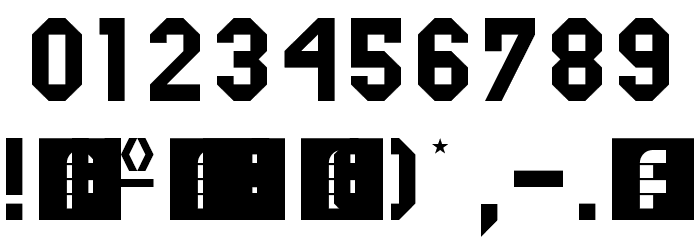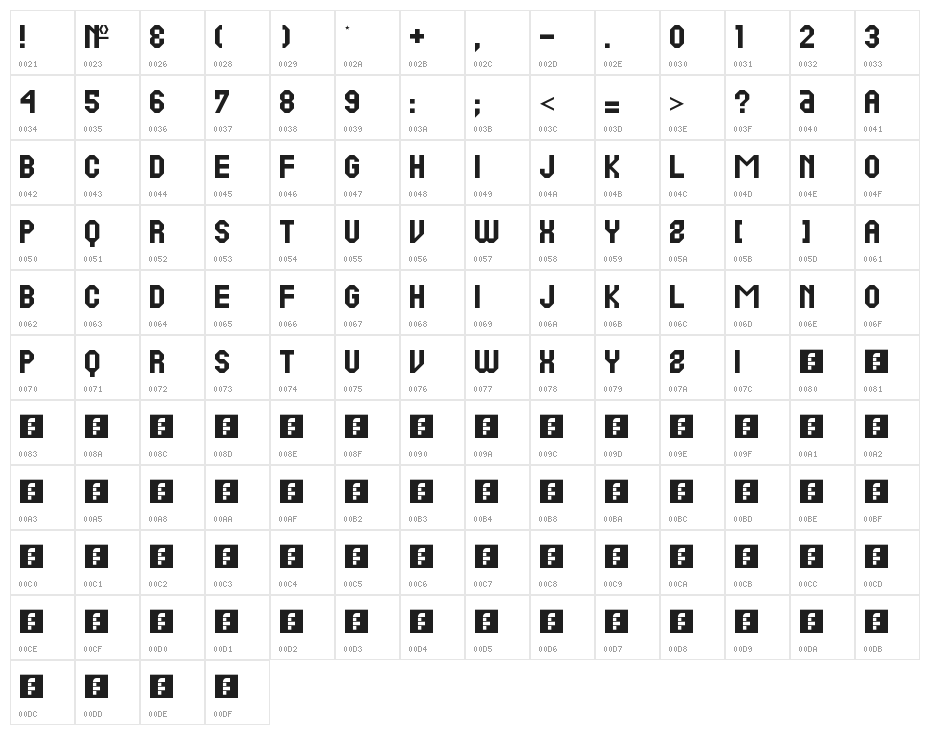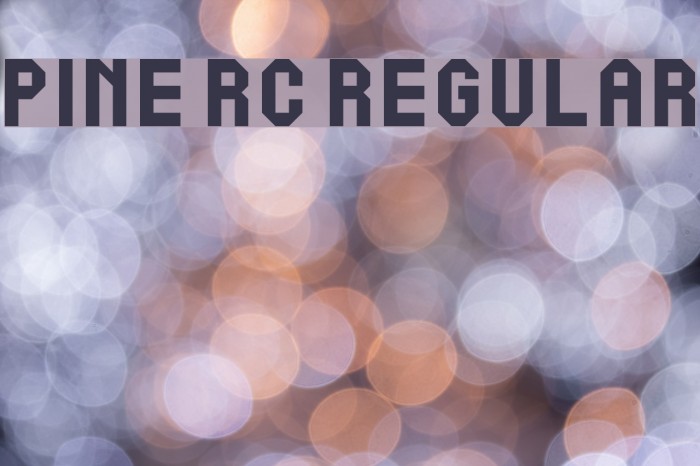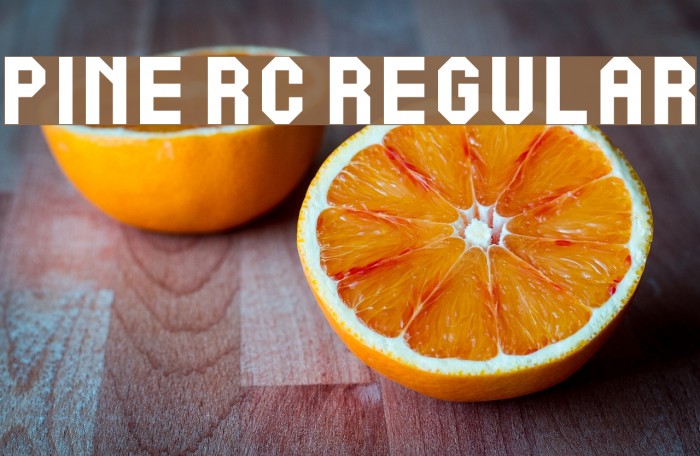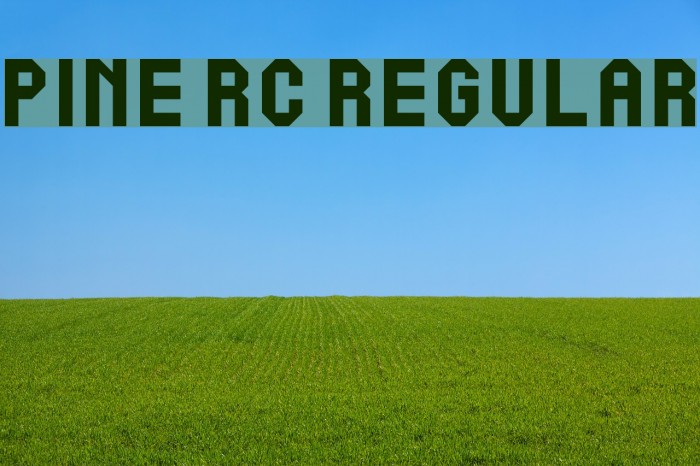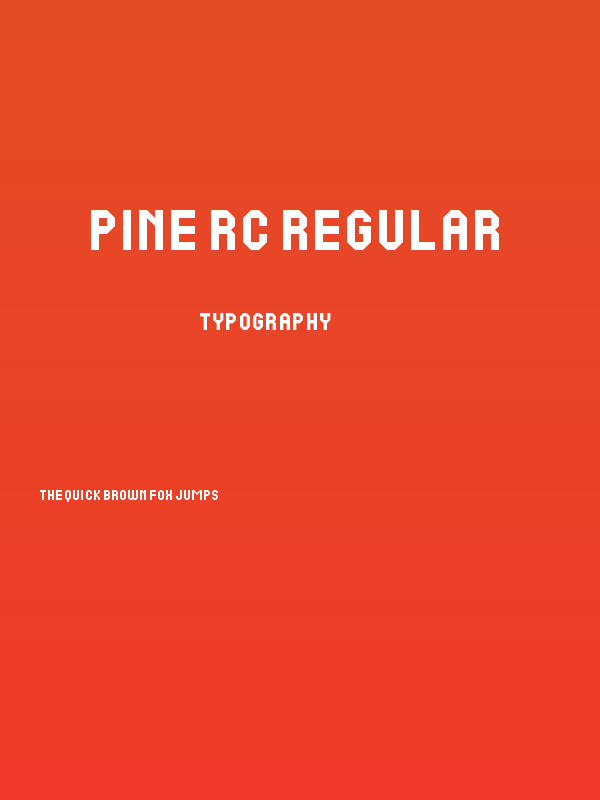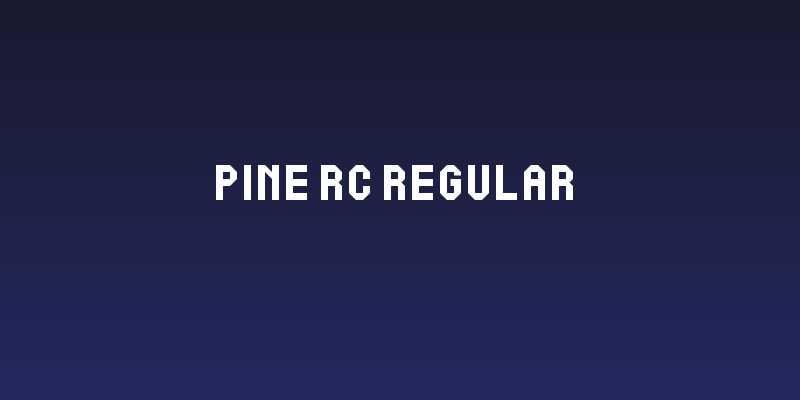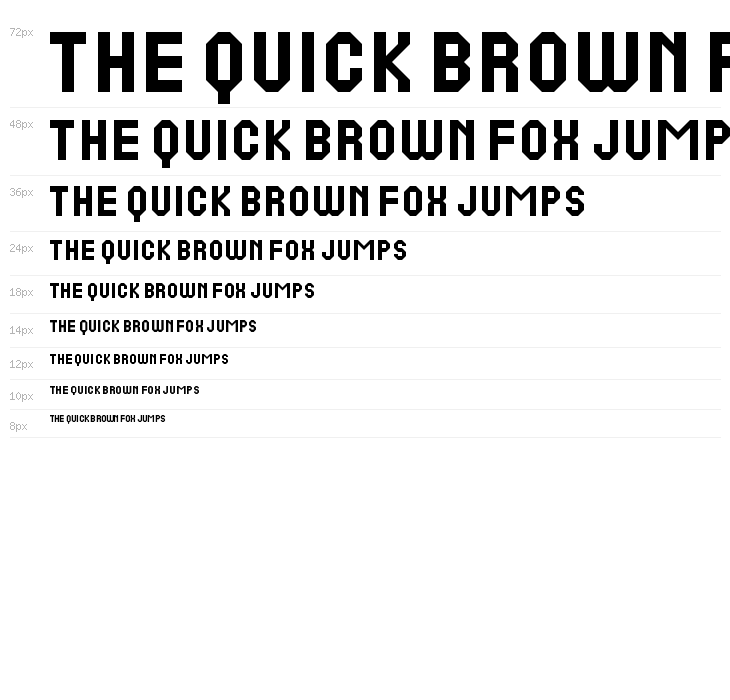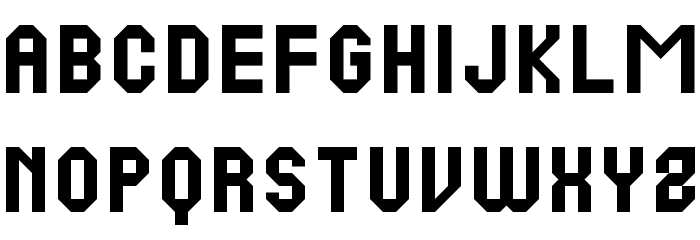
Pine RC Regular Font
Pine RC Regular Description
This font features a bold, geometric style with a strong presence. The characters are constructed with straight lines and sharp angles, giving it a modern and industrial feel. The uppercase letters are uniform in height, while the lowercase letters maintain a consistent style, ensuring readability. Numbers and special characters follow the same design principles, making them cohesive with the alphabet. The font's blocky appearance and uniform stroke width contribute to its boldness, making it ideal for impactful designs.
| Proposed Projects | Ideal for branding, posters, headlines, and signage where a strong, modern aesthetic is desired. |